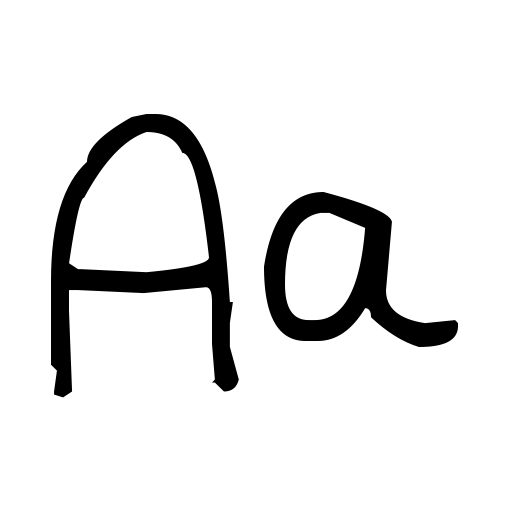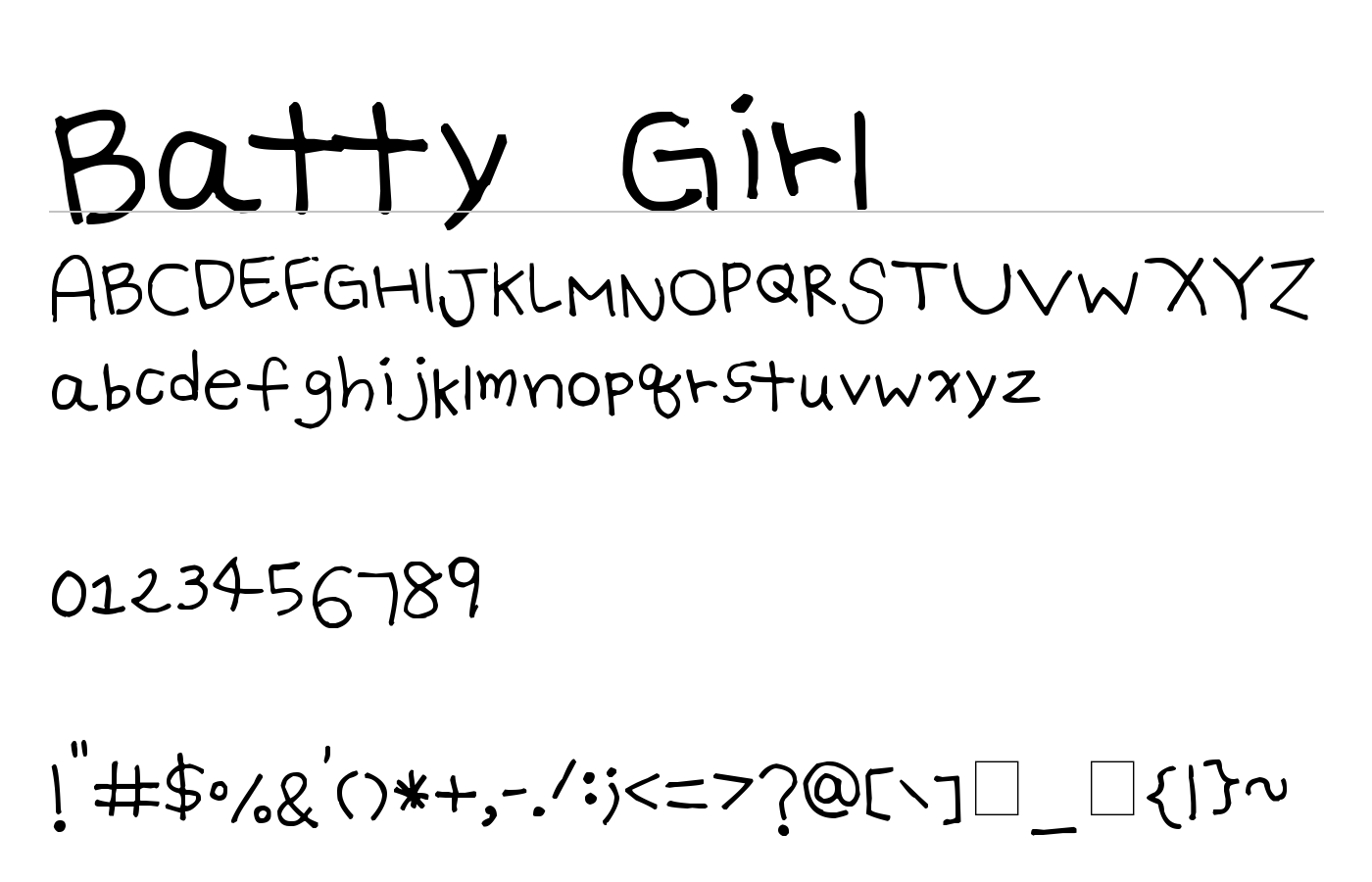
Batty Girl is a playful, handwritten sans serif font with a casual and friendly vibe. Its irregular, slightly quirky letterforms and medium x-height give it an approachable and fun personality, making it perfect for informal designs like children’s books, greeting cards, or creative branding that seeks a personal touch. This font works best in headlines, logos, or any design wanting to convey warmth and creativity.
Batty Girl Font
About Batty Girl Font